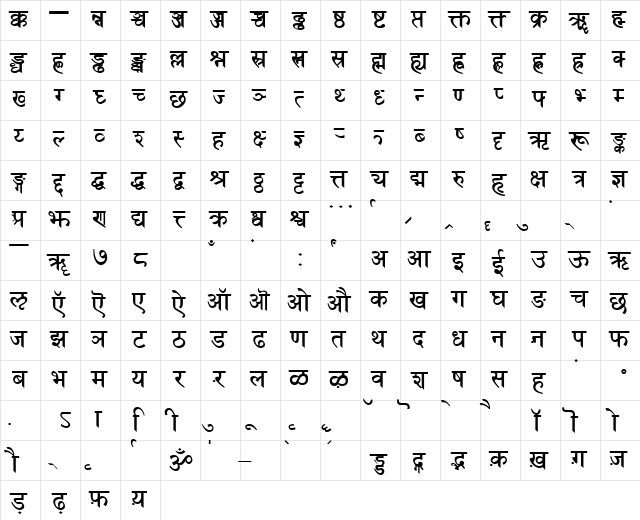
SanskritDelhiSSK Bold
Design Context for SanskritDelhiSSK Typeface
SanskritDelhiSSK offers clean, dependable letterforms without strong stylistic allegiance, making it a practical choice for designers who need flexibility. Its bold stroke weight gives it real presence on the page.